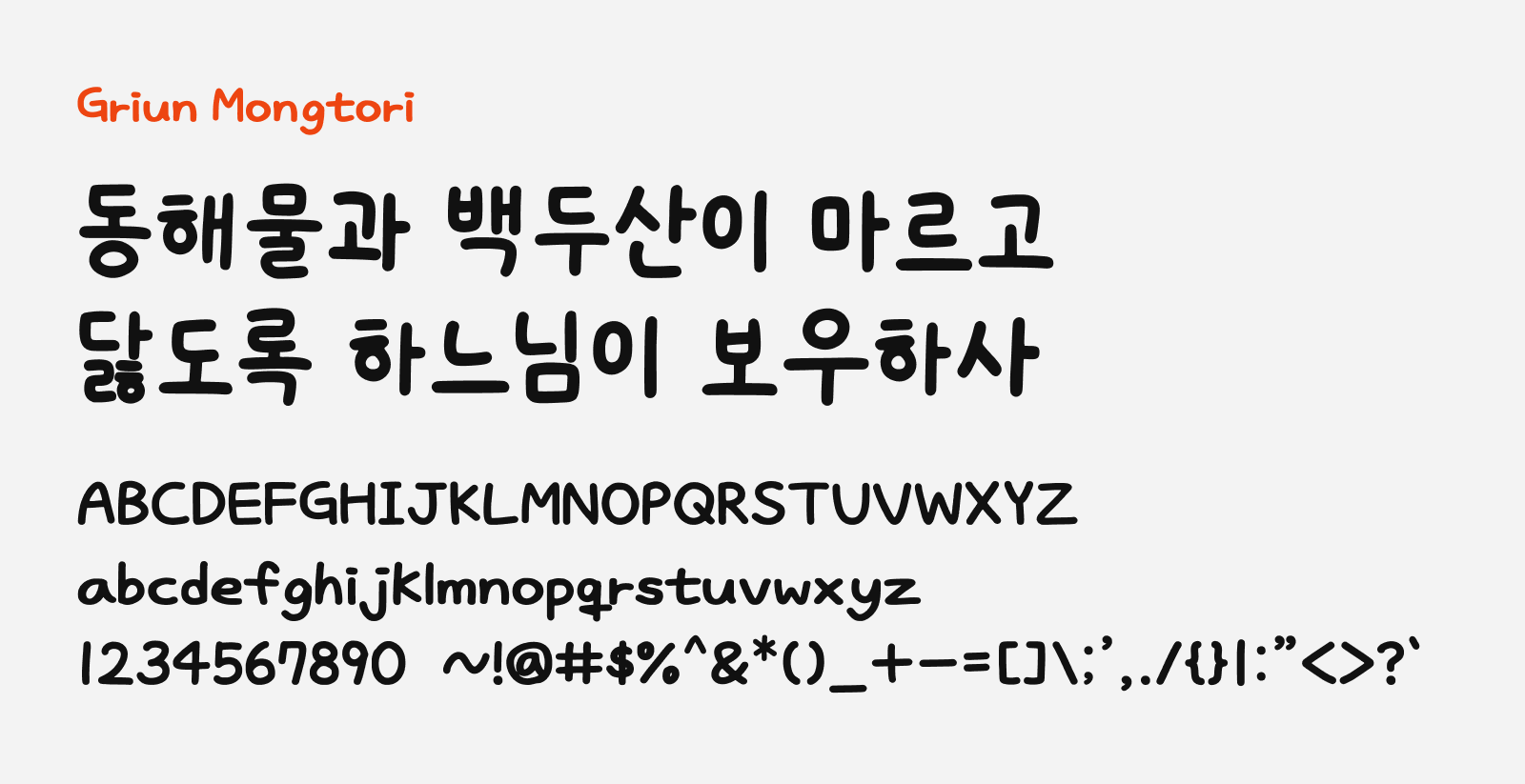
Griun Mongtori
Preview of Griun Mongtori, a free handwriting Korean font
Griun Mongtori (그리운 몽토리체) is a rounded and bold Korean handwriting font available to download for free. It was handwritten by a lady named Se Hui (세히). According to her, she was often complimented for her handwriting, and due to noticing herself taking notes more and more on iPad during her college days that inspired her to turn her handwriting into font. Many people mentioned that her handwriting reminded them of acorns (dotori) or had a soft, fluffy quality (monggeul), therefore she combined the two to become “Mongtori” for this font.
Griun Mongtori has a thicker and consistent stroke width. With its thick stroke, it works beautifully well on video subtitles, and gives a friendly yet clean impression when used in journals, memos, posters and more. It supports full Korean characters and also basic Latin script. It’s free to download and be used on personal and commercial projects.